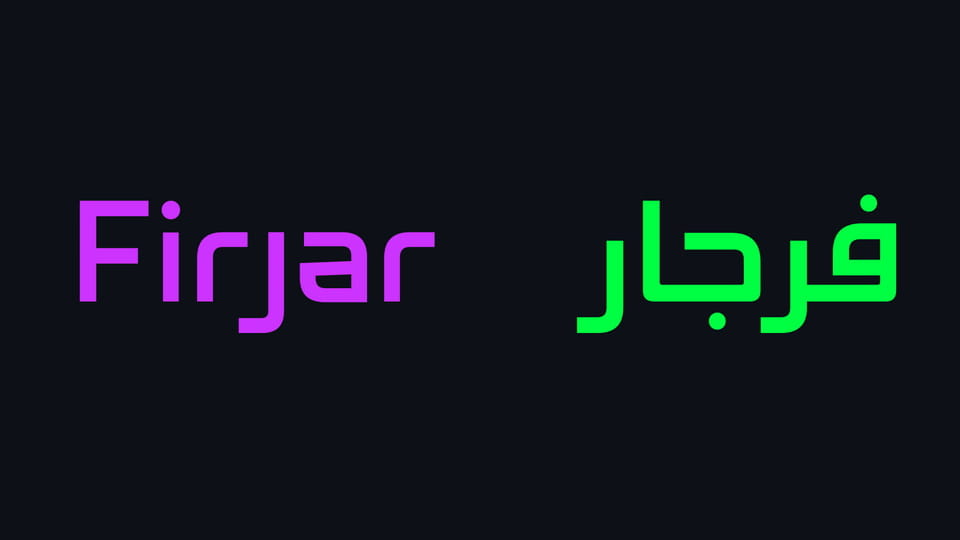
Download Firjar font, a contemporary Kufic-inspired and minimalist bilingual typeface, covering both Arabic and Latin scripts with precision and harmony.
Designer: Mestara Type Foundry